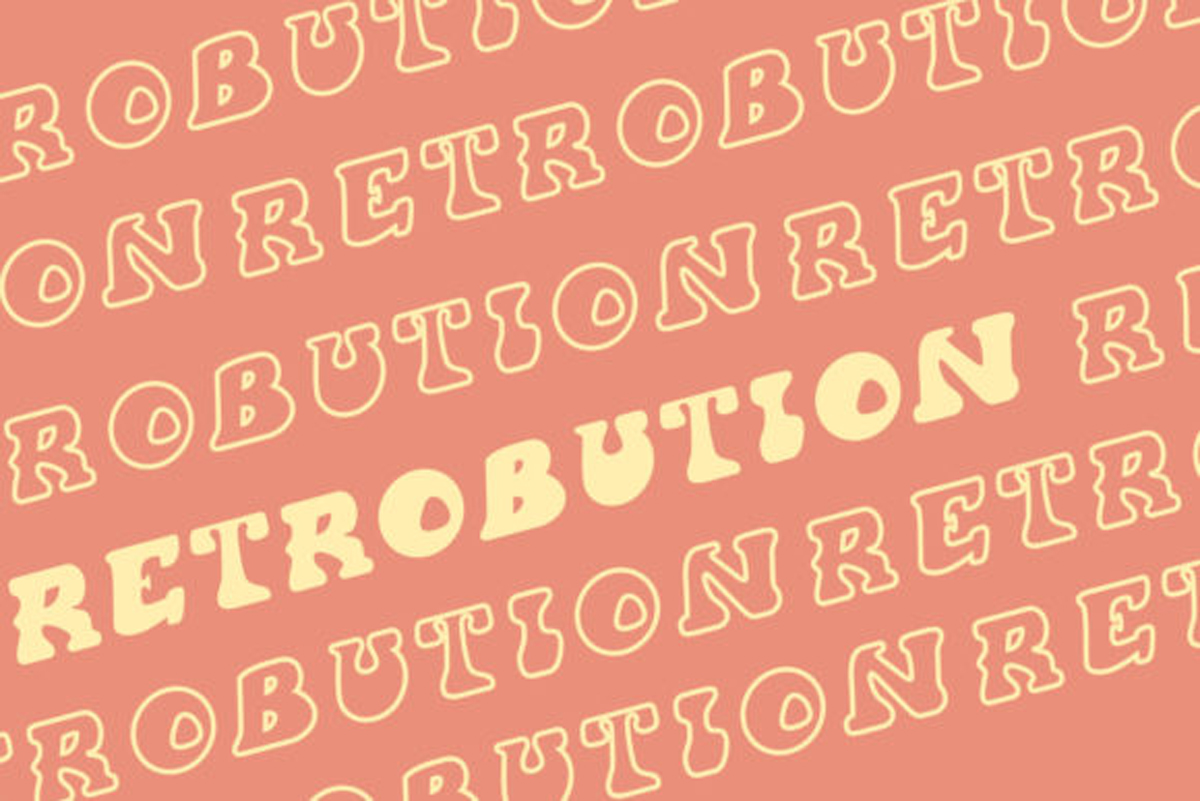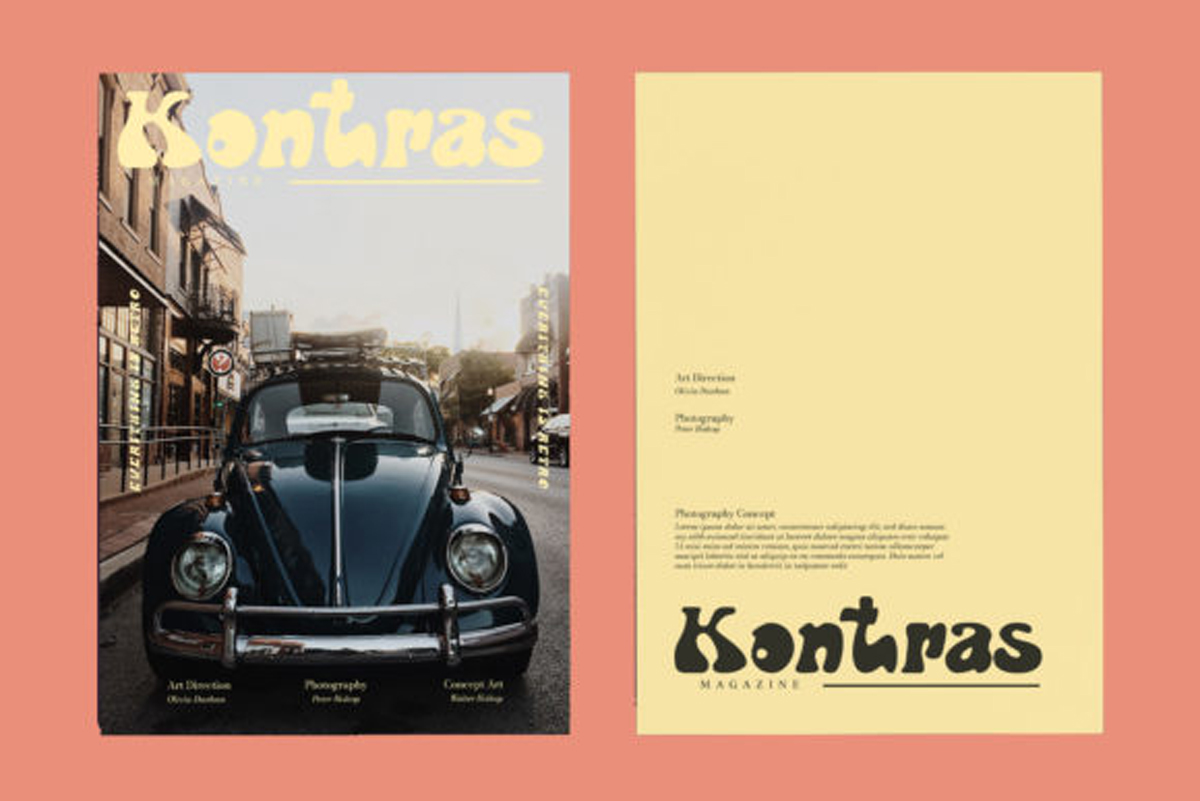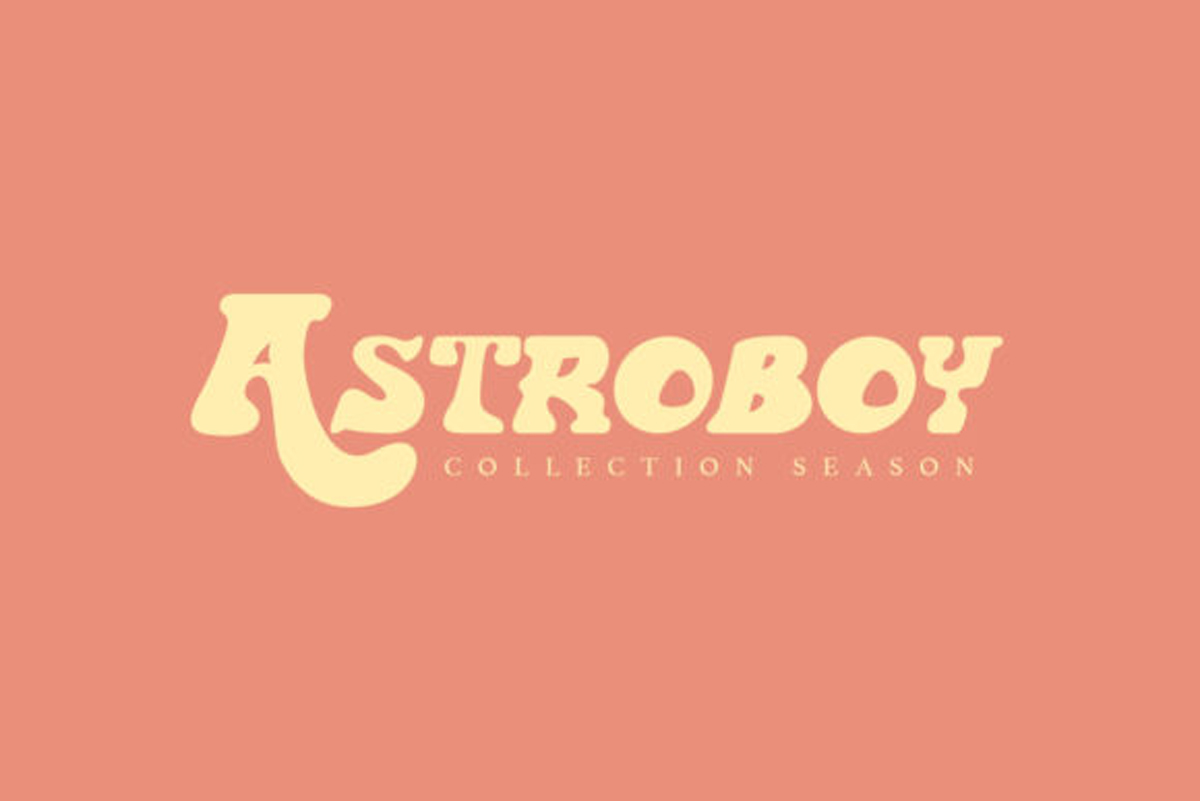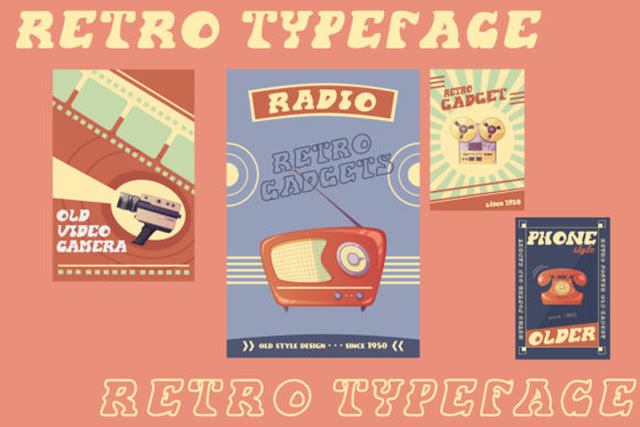
Hofisem Font
Free Download Hofisem Font with high speed direct link. Hofisem is a bold and chunky lettered display font. Add this font to your creative ideas and notice how it will make them stand out!